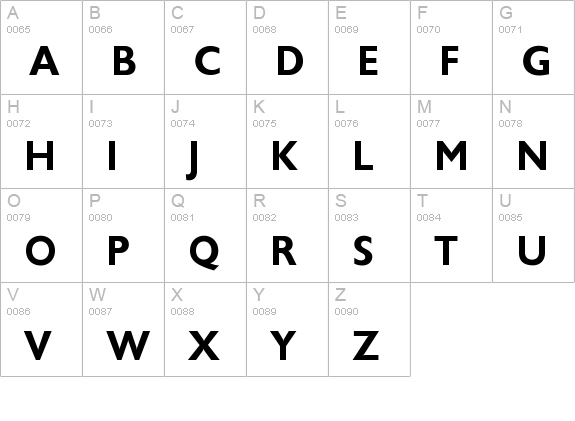
Chantilly-DemiBold Font Details
Chantilly-DemiBold is a sub-bold, structured variant in the Chantilly typeface family \xE2\x80\x94 well suited to sub-headlines and emphasised passages.
Chantilly-DemiBold is a sophisticated and elegant font that exudes a sense of modernity and style. With its bold and distinctive letterforms, this typeface is perfect for creating eye-catching designs that demand attention. The thick strokes and clean lines of Chantilly-DemiBold make it ideal for headlines, logos, and other display purposes. What sets Chantilly-DemiBold apart is its versatility - it can be used for both formal and casual projects, adding a touch of class to any design. Whether you're designing a wedding invitation, a business card, or a poster, Chantilly-DemiBold will elevate your work to the next level. The best part? Chantilly-DemiBold is completely free to download at FontsMarket.com. So go ahead and add this stunning font to your collection today and watch your designs come to life with style and sophistication.